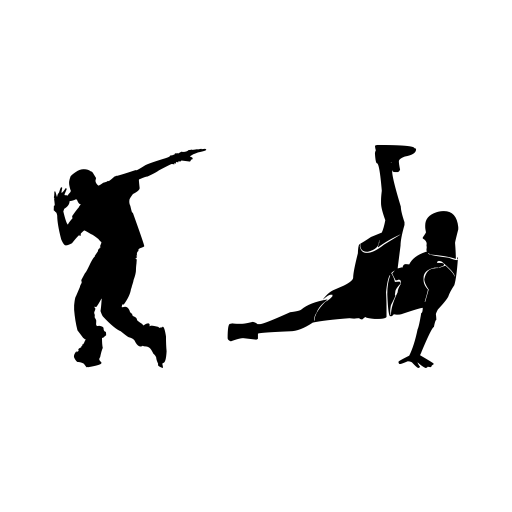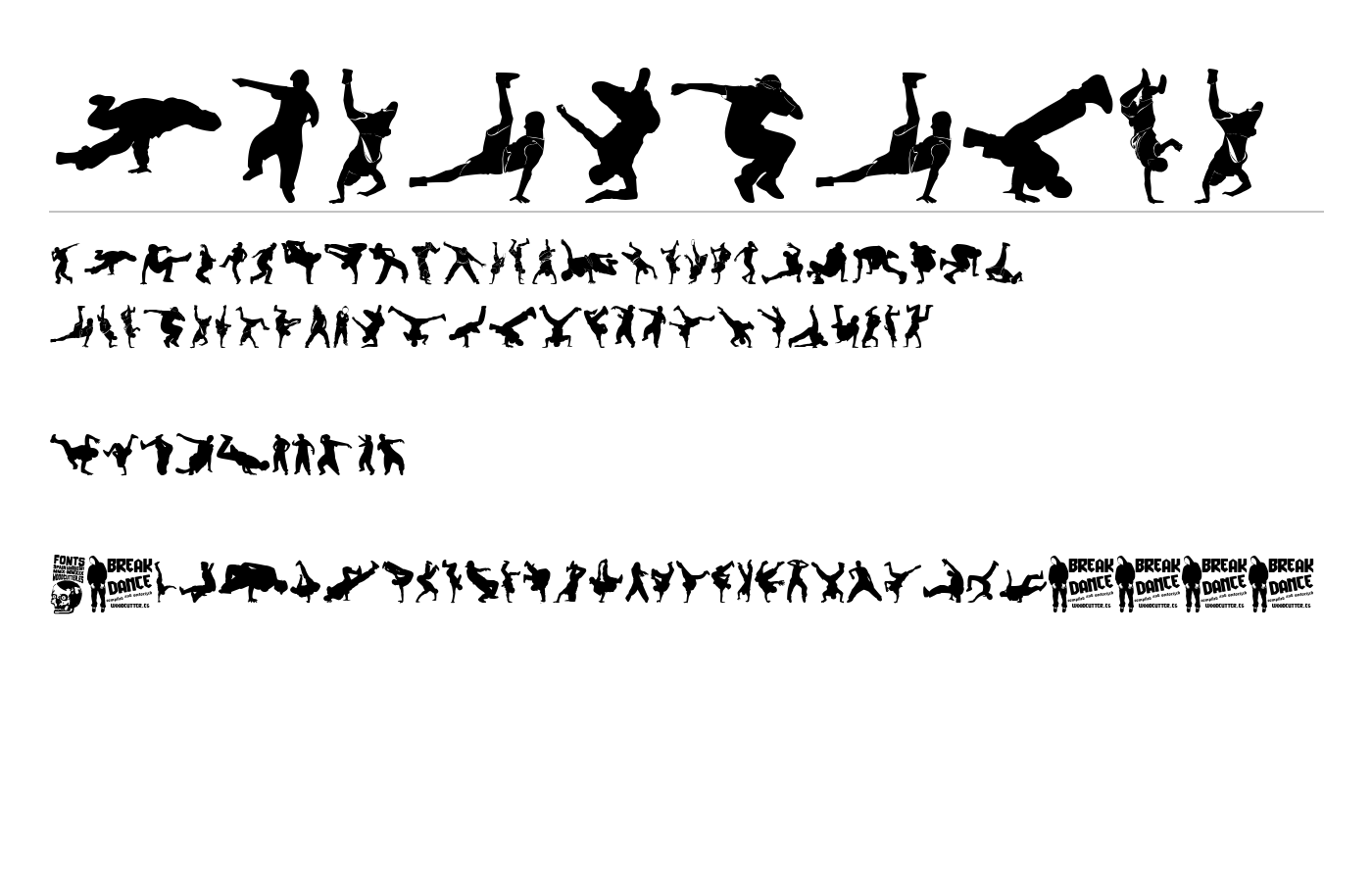
Breakdance Font creatively transforms breakdancing silhouettes into a unique graphic symbol set rather than traditional letterforms, making it a visually dynamic and bold display font. Its playful and energetic style captures urban street culture, perfect for eye-catching logos, posters, and event branding related to dance, hip-hop, or youth-oriented themes. This font works best in large sizes where its detailed, action-packed figures can stand out and convey a lively, modern vibe.
Breakdance Font
About Breakdance Font
| Font family | Breakdance Font |